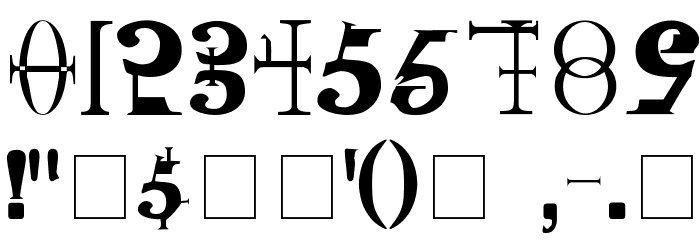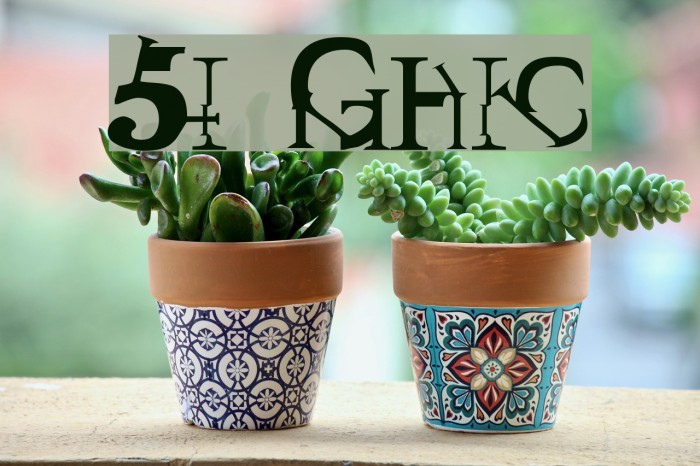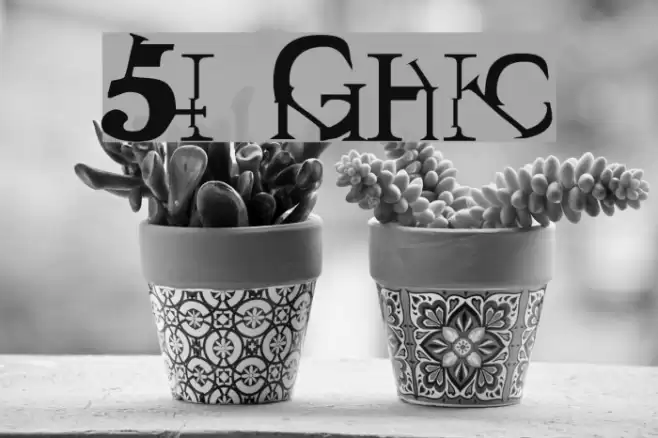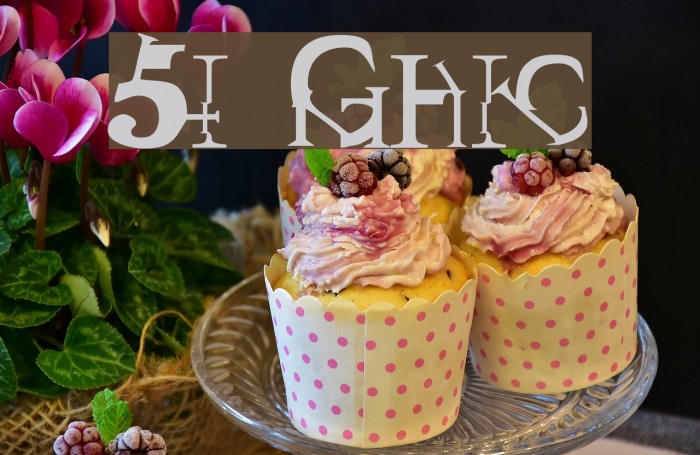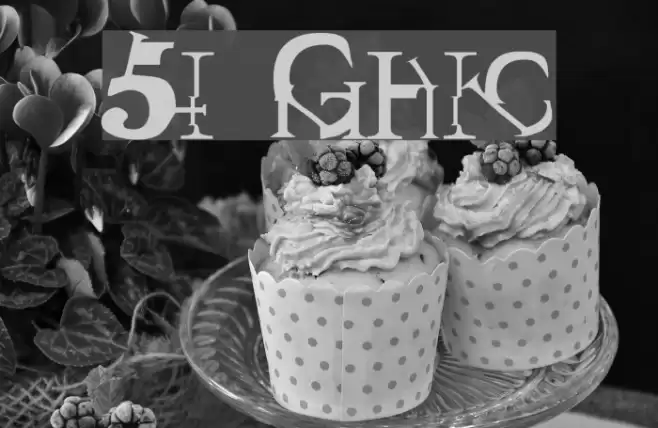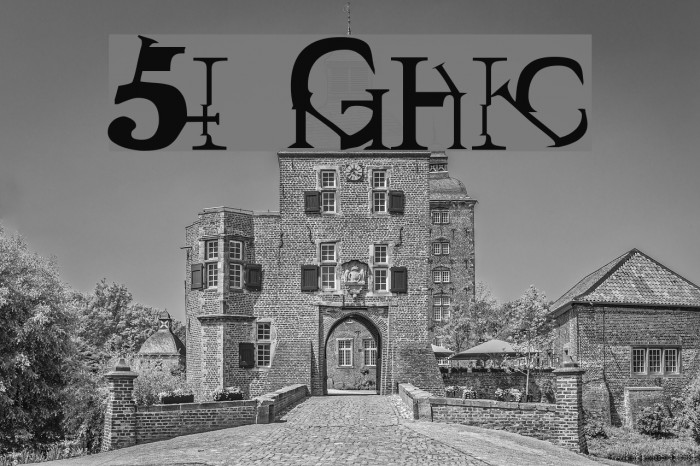
Sin Gothic Font
Sin Gothic Description
This font features a bold and striking design with a gothic influence, characterized by sharp angles and dramatic strokes. The uppercase letters are particularly distinctive, with unique embellishments that give them an edgy, rebellious feel. The lowercase letters maintain this aesthetic, providing a cohesive look across all text. Numbers and special characters are equally stylized, ensuring consistency throughout. The font's intricate details and bold presence make it stand out, suitable for projects that require a strong visual impact.
| Overall Style | Gothic, Decorative |
| Proposed Projects | Ideal for album covers, posters, branding for edgy or alternative products, and any design needing a bold statement. |